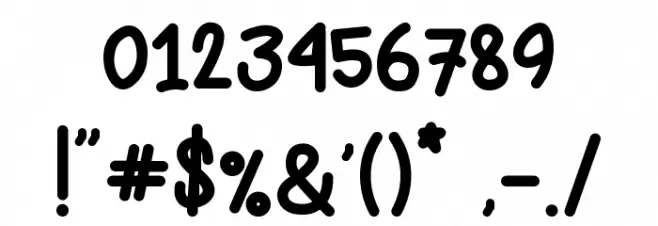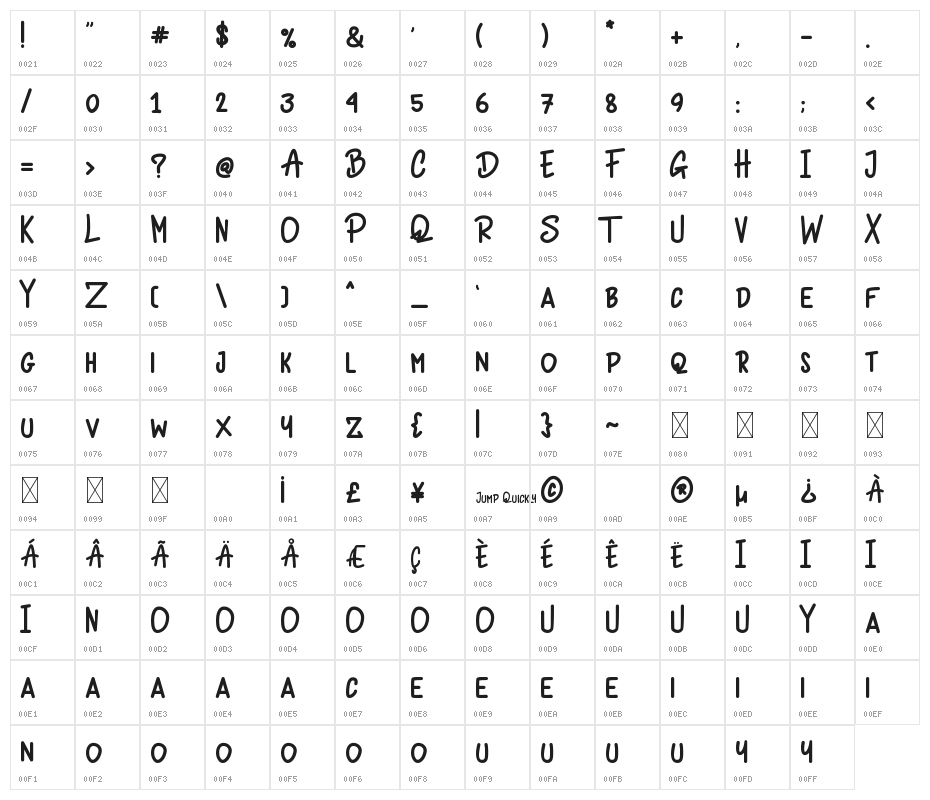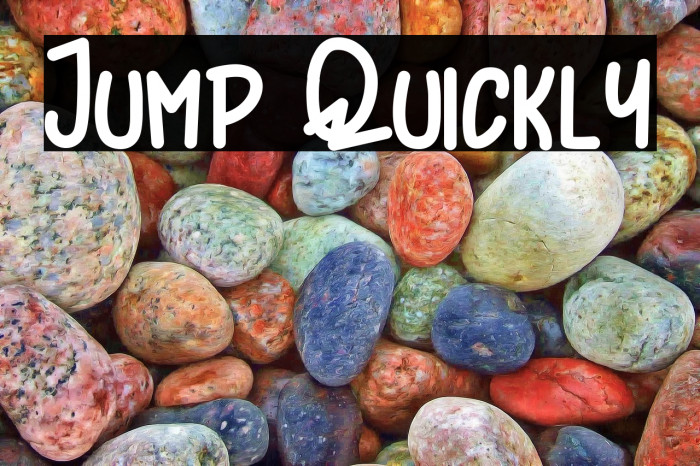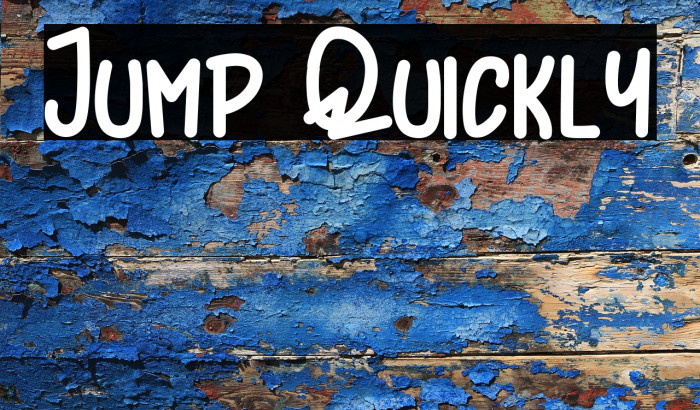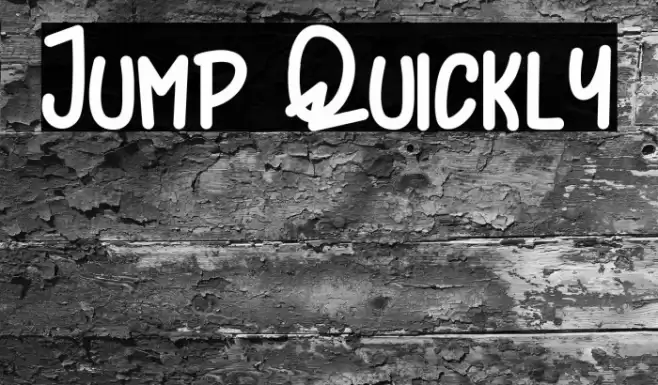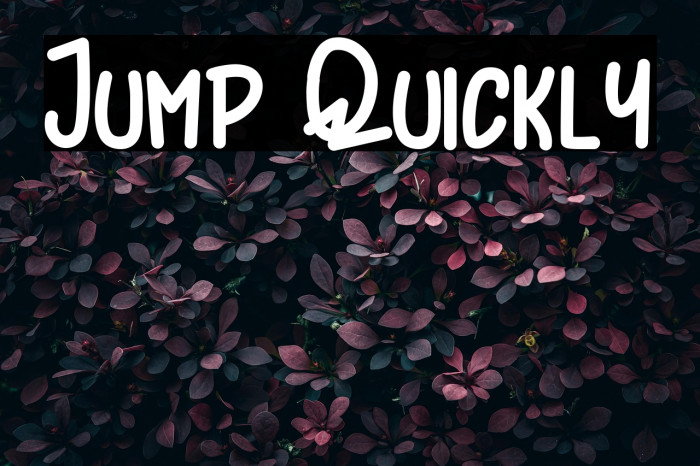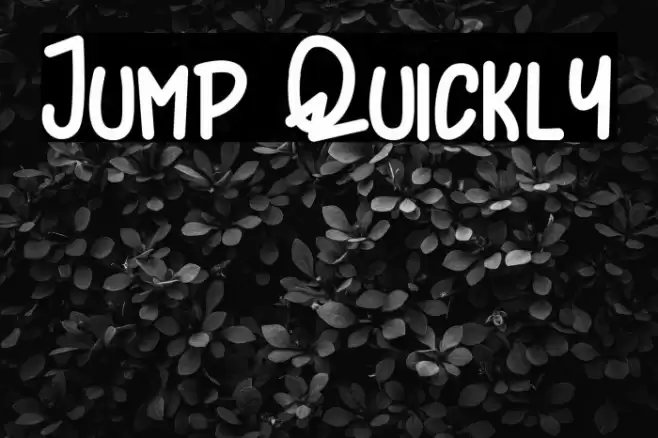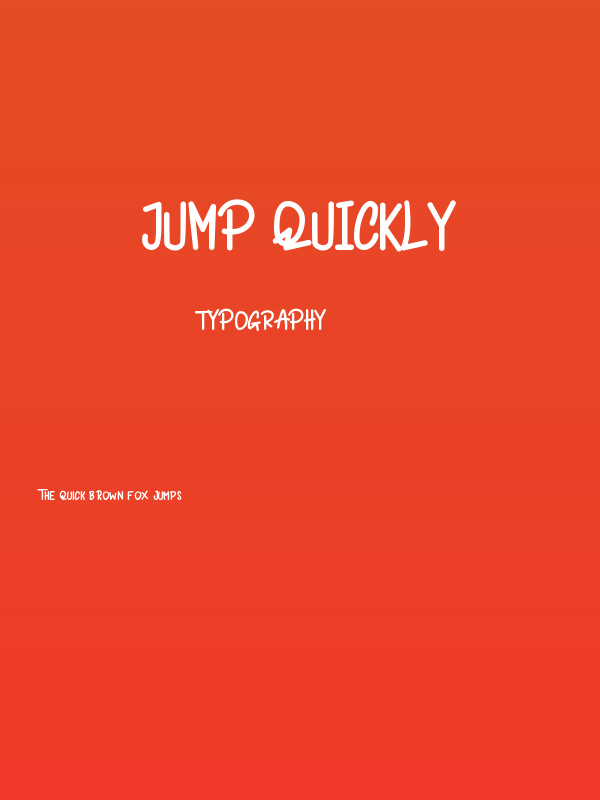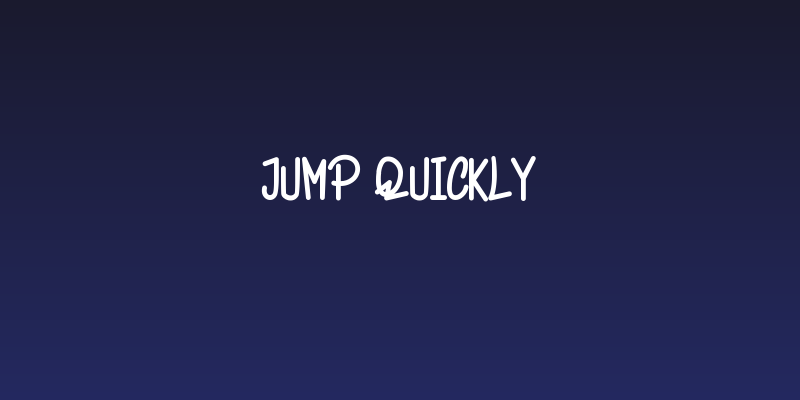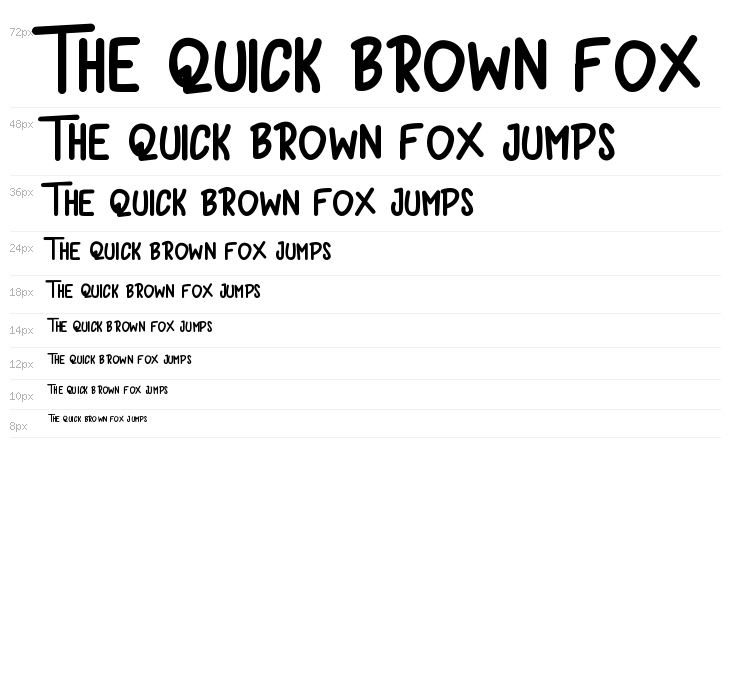
Jump Quickly Font
Jump Quickly Description
This playful and energetic font features bold, rounded strokes with a handwritten style that exudes a sense of fun and spontaneity. The letters are slightly slanted, giving them a dynamic appearance, while maintaining a consistent thickness throughout. The uppercase and lowercase characters are well-balanced, with a casual flair that makes them stand out. The numbers and special characters follow the same lively design, ensuring uniformity across all elements. This font is perfect for projects that require a touch of whimsy and creativity.
| Proposed Projects | Ideal for children's books, playful branding, greeting cards, and casual posters. |